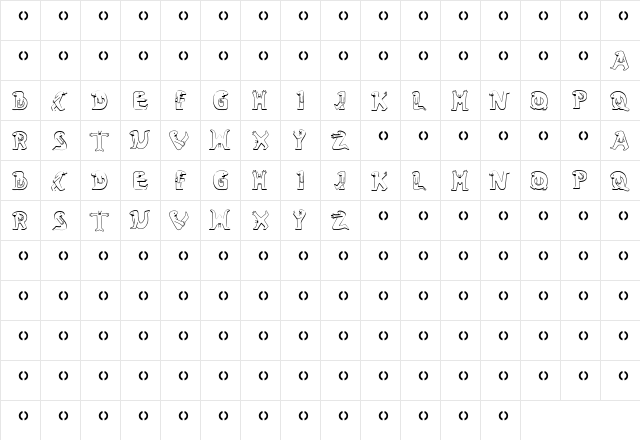
Lolo Regular
Design Context for Lolo Typeface
Lolo is a composed and adaptable typeface that performs quietly and consistently across a wide range of design contexts.